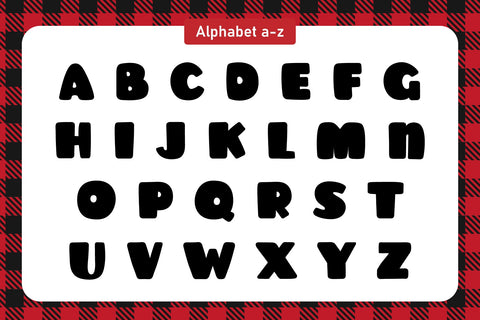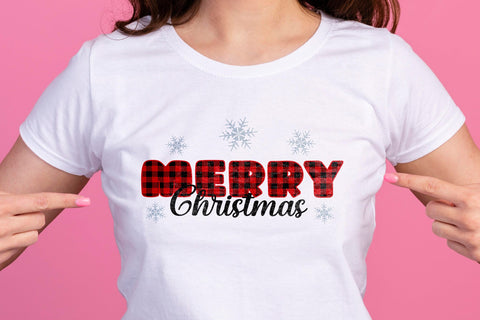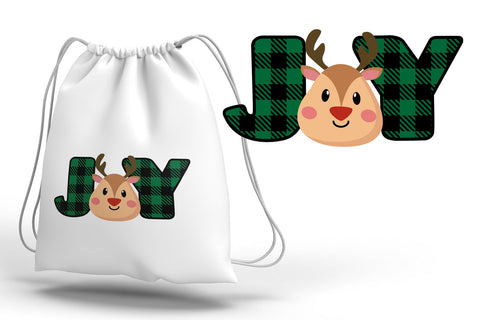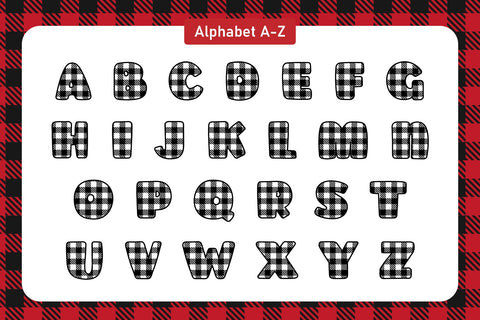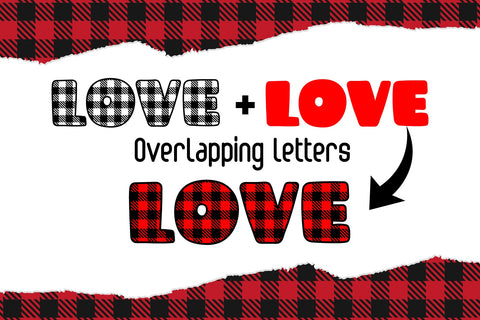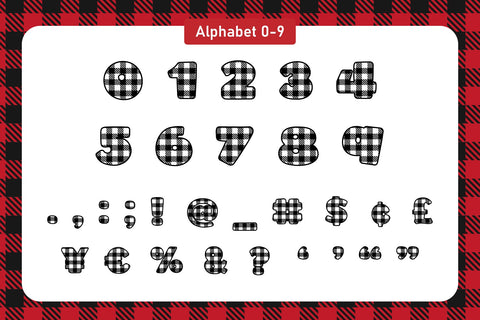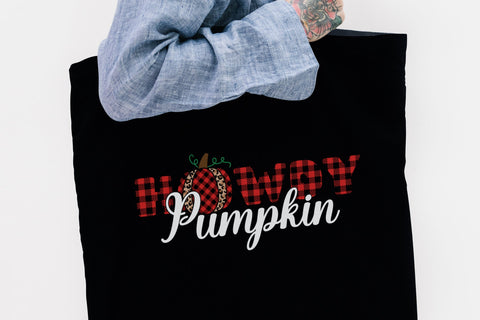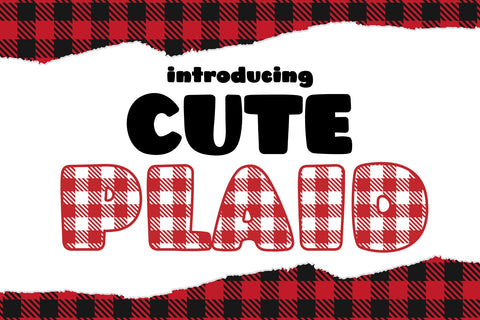
Cute Plaid Font
Cute Plaid is a cute, casual, and friendly decorative font. perfect for Xmas projects, fall projects, blog posts, logos, branding, ads, invitations, greeting cards, planners, photo albums, decorations, and much more. It will be a wonderful asset to your fonts library as it has the potential to enhance any creation. Add it to any of your designs and enjoy the results!